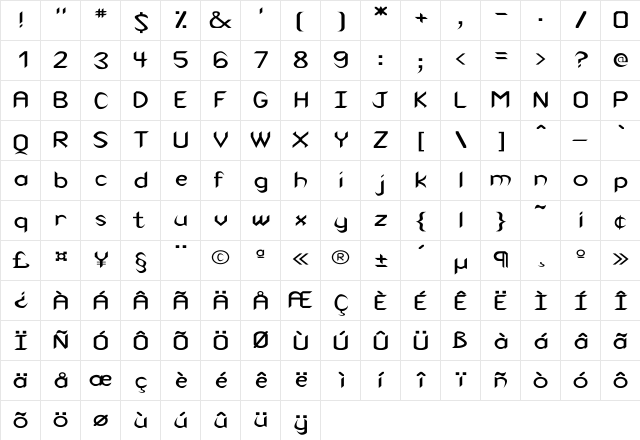
Cuneiform Wd Regular
Design Context for Cuneiform Wd Typeface
Cuneiform Wd offers clean, dependable letterforms without strong stylistic allegiance, making it a practical choice for designers who need flexibility.